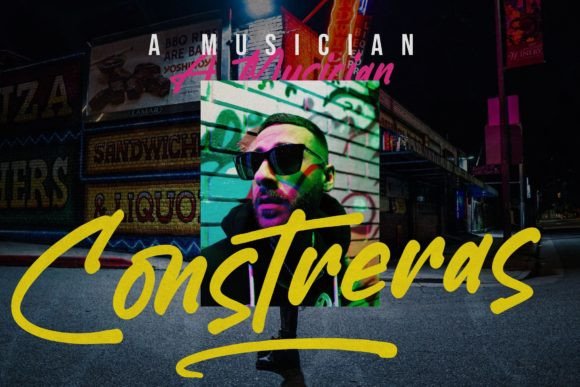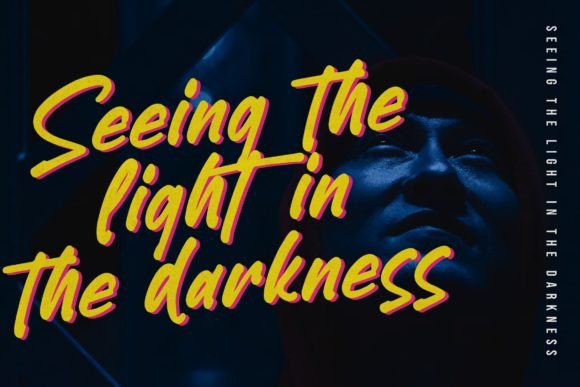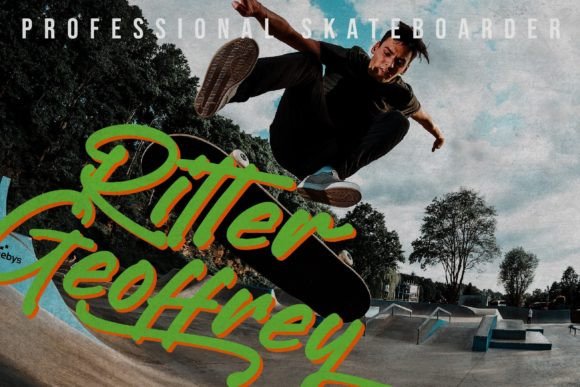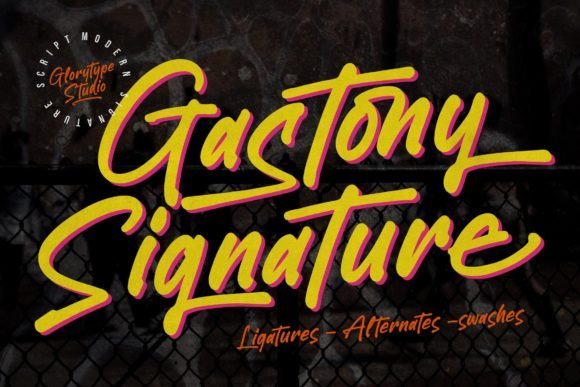
Gastony Signature is a dazzling script font.
It is neatly crafted and highly detailed Whatever the topic, this font will be a wonderful asset to your font library, as it has the potential to enhance any creation.
Gastony Signature Font offers exceptional quality and versatility, making it a valuable addition to your design toolkit. Whether you’re creating for personal projects or commercial use, Gastony Signature Font delivers professional results.